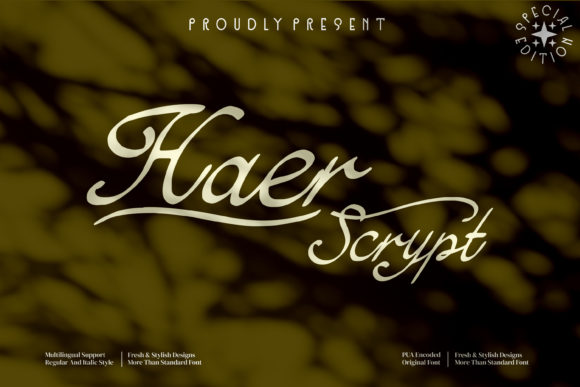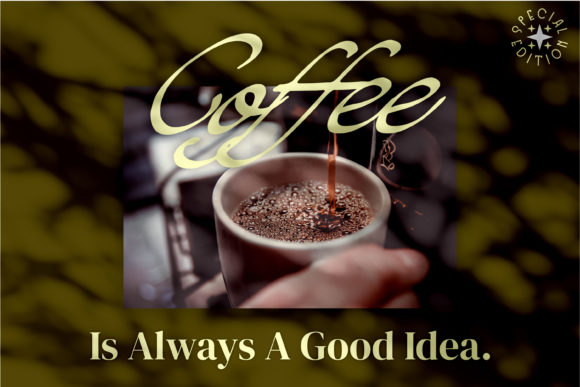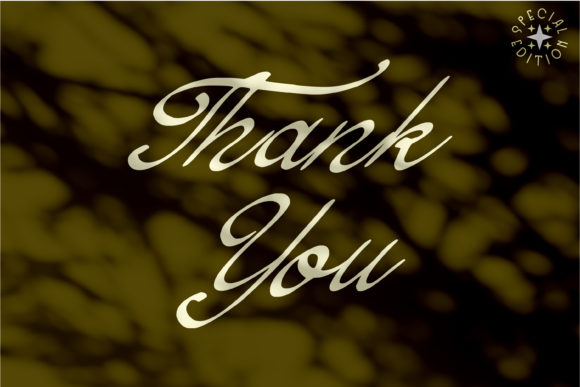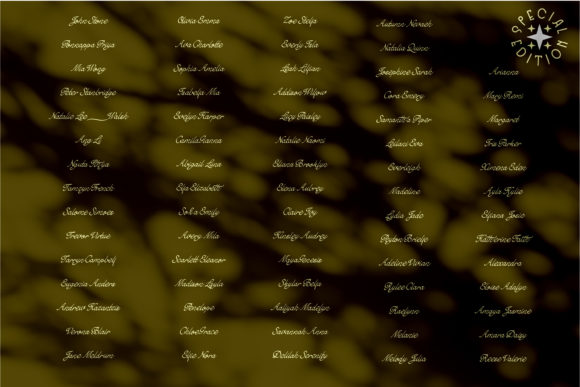
About Haer Script Font
Haer Script is a ravishing script font. This font is neatly crafted and highly detailed. It will be a wonderful asset to your font library, as it has the potential to level up any design.